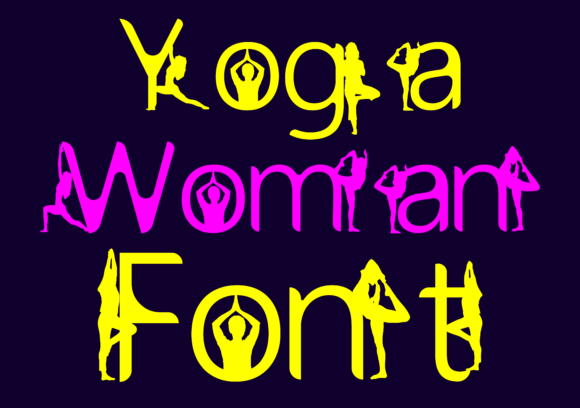
Dive into the world of Yoga Woman Font, a captivating decorative font that will transform your creative visions into serene masterpieces. Crafted by the ingenious Timhar Designer, this font exudes an aura of tranquility that will elevate your designs to new heights.
Yoga Woman Font is not just a collection of letters and symbols; it's an artistic expression of balance and harmony. With its flowing lines and graceful curves, this font will add a touch of serenity to your projects, evoking a sense of inner peace and tranquility.
Unleash your creativity and let Yoga Woman Font guide you on an artistic journey. Whether you're designing logos, branding materials, social media posts, or any other creative project, this font will add a touch of elegance and sophistication.
Imagine the serene beauty of a yoga pose captured in the delicate strokes of Yoga Woman Font. This font will breathe life into your designs, creating a visual symphony that captivates and inspires.
The versatility of Yoga Woman Font knows no bounds. It complements a wide range of design styles, from the minimalist and modern to the intricate and ornate. Whether you're creating a calming yoga studio website or a serene spa brochure, this font will effortlessly elevate your message.
With Yoga Woman Font, you'll tap into the power of visual storytelling. This font will allow you to create designs that resonate with your audience on a deeper level, leaving a lasting impression that lingers in their minds.
So, embrace the tranquility of Yoga Woman Font and embark on a creative journey that will leave you feeling centered and inspired. Let this font be your guide as you explore the depths of your imagination and create designs that are truly exceptional.